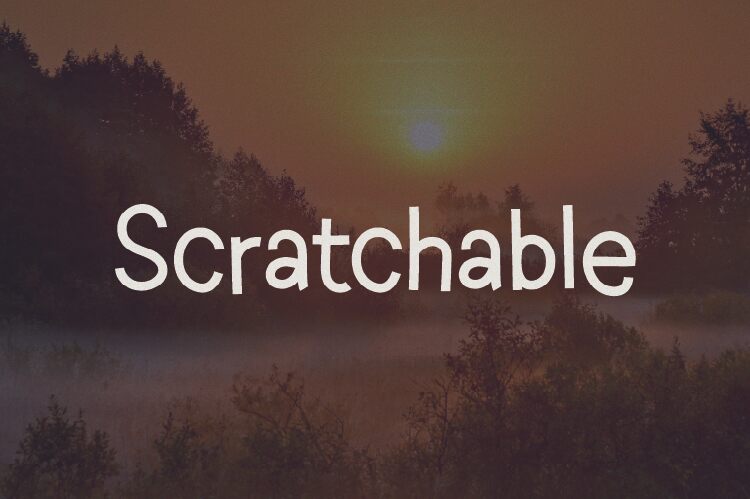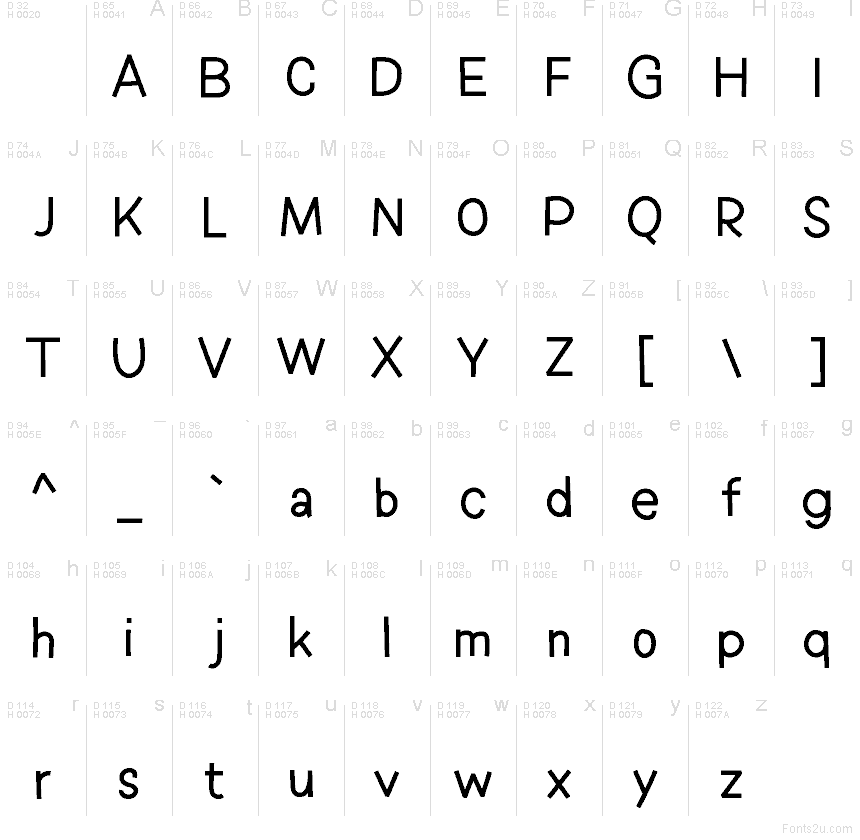
Scratchable font by HannaBie Creative Studio is a free comic display typeface that solves a common issue: getting playful, hand-drawn energy without sacrificing clarity. Its letters feel like they’ve been quickly sketched with a felt-tip pen-slightly rough, a bit scratchy, yet still neat and evenly spaced. The result is a casual, friendly voice that stays legible in longer words and tight layouts, so you can turn up the personality without your text falling apart.
Using Scratchable, this free font shines on kids’ book covers, playful branding, quote graphics, social media posts, event flyers, and game interfaces. The lively strokes add a sense of movement and fun, making even simple headlines feel animated. For a balanced look, pair Scratchable with a clean rounded sans serif for small supporting text, and keep Scratchable big and bold so its sketchy character really shows.